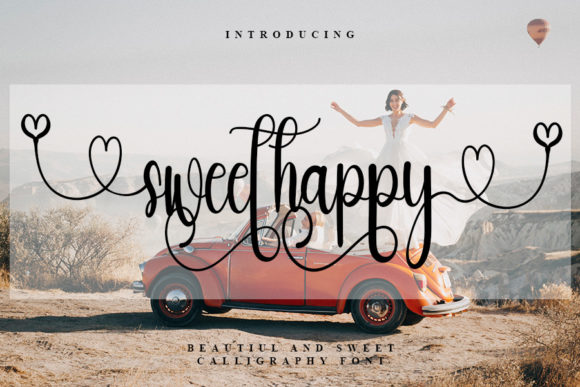
Unleash the Enchantment of Sweet Happy Font: Where Romance and Elegance Intertwine
In a realm where words become art, Sweet Happy Font emerges as an exquisite creation, capturing the essence of love, longing, and timeless beauty. This romantic and sweet calligraphy typeface dances with grace across your designs, adding an ethereal touch to every project you envision.
Sweet Happy is a symphony of elegant strokes and flowing curves, crafted to evoke emotions and create heartfelt connections. Its characters pirouette along the baseline, like delicate ballet dancers performing a graceful choreography. With Sweet Happy Font, your designs will radiate an aura of romance and sophistication, captivating the hearts of your audience.
Beyond its aesthetic allure, Sweet Happy Font is a versatile performer, effortlessly adapting to a multitude of projects. Whether you're crafting heartfelt wedding invitations, designing captivating book covers, or creating enchanting posters, Sweet Happy Font seamlessly blends with your vision, adding a touch of magic to every endeavor.
Feel the Passion, Embrace the Romance:
With Sweet Happy Font, you'll discover a font that ignites passion and sets hearts aflame. Its intricate ligatures and stunning glyphs elevate your designs to new heights, transforming ordinary words into works of art. Each letter harmoniously intertwines, creating a visual tapestry that captivates and enchants.
Picture your romantic novel adorned in the splendor of Sweet Happy Font. The words will dance across the pages, carrying your readers on a journey of love and longing. They'll feel the passion between your characters, the heartache, and the ecstasy, as if they're living the story themselves.
Sweet Happy Font is more than just a font; it's an experience. It's a chance to express your creativity, to share your love for romance, and to create designs that touch the soul. Let Sweet Happy Font be your muse, your guiding light, as you embark on a creative journey that will leave a lasting impression.